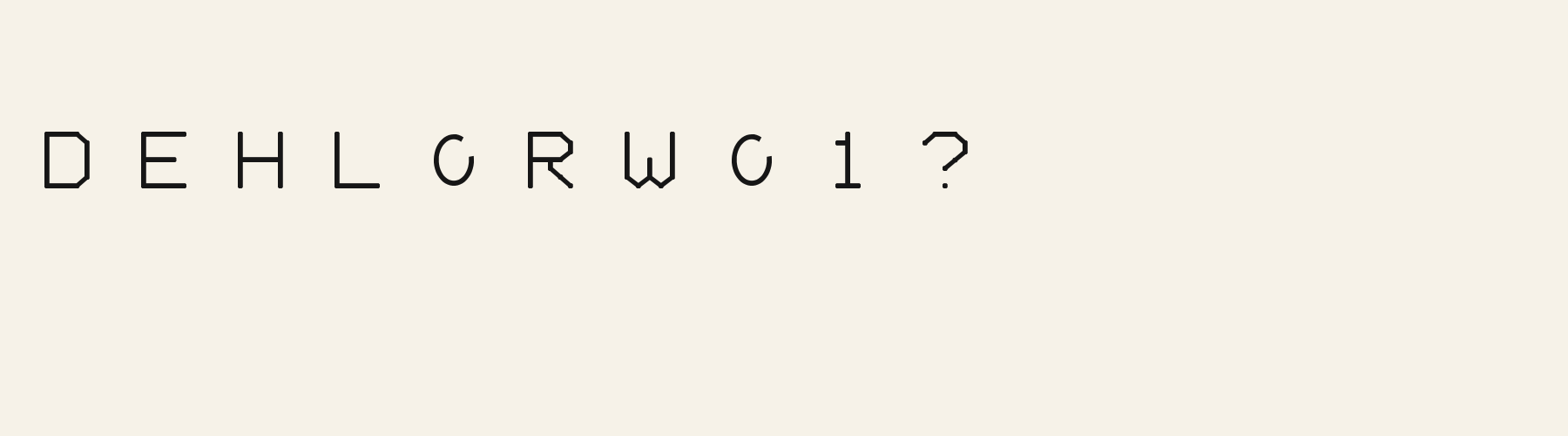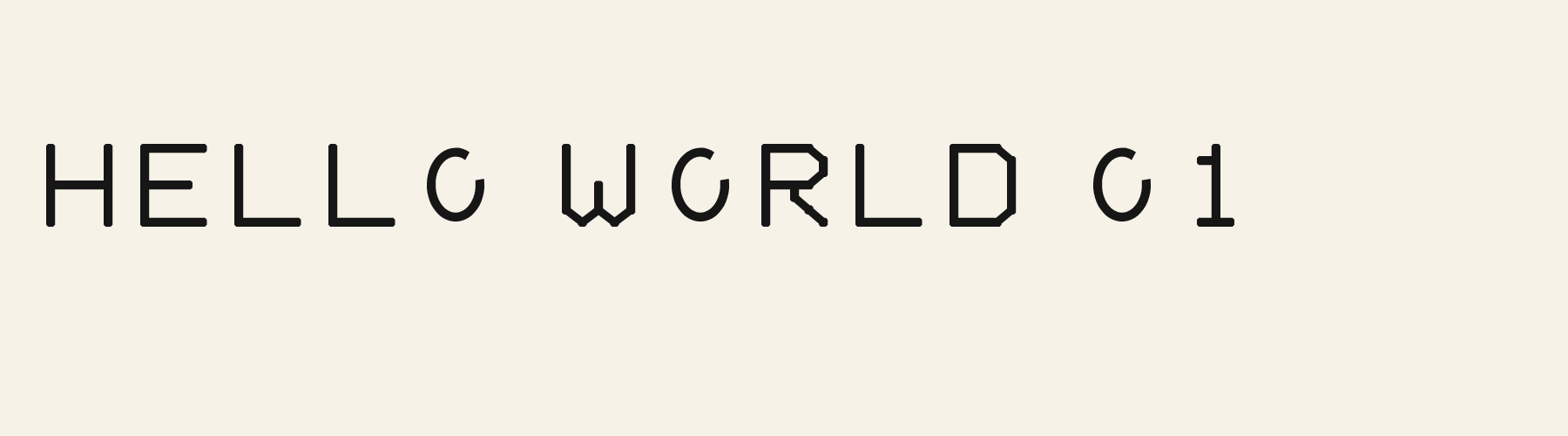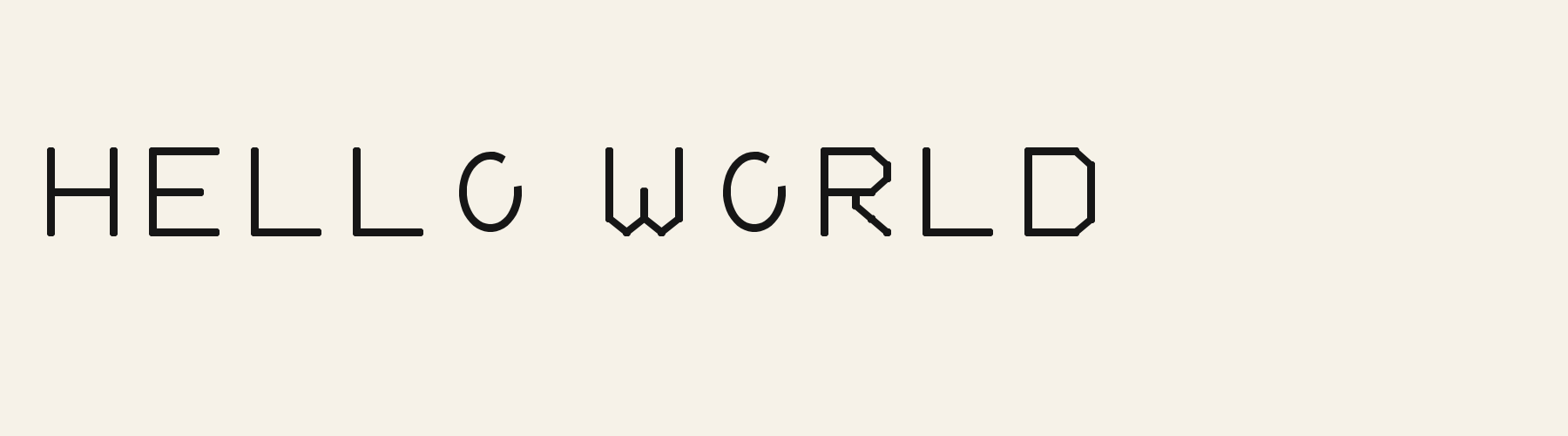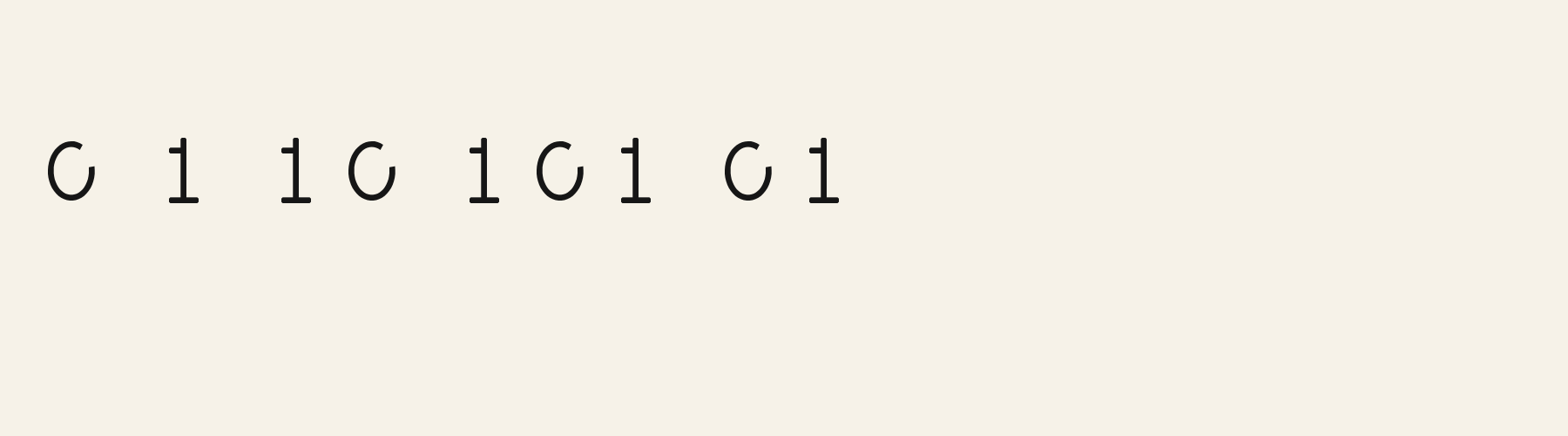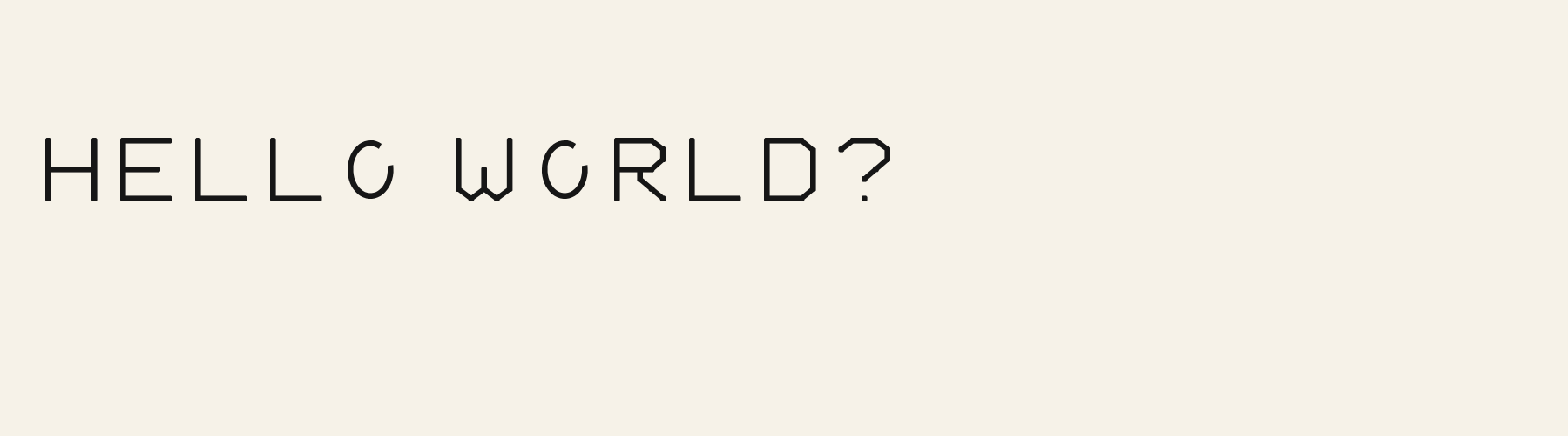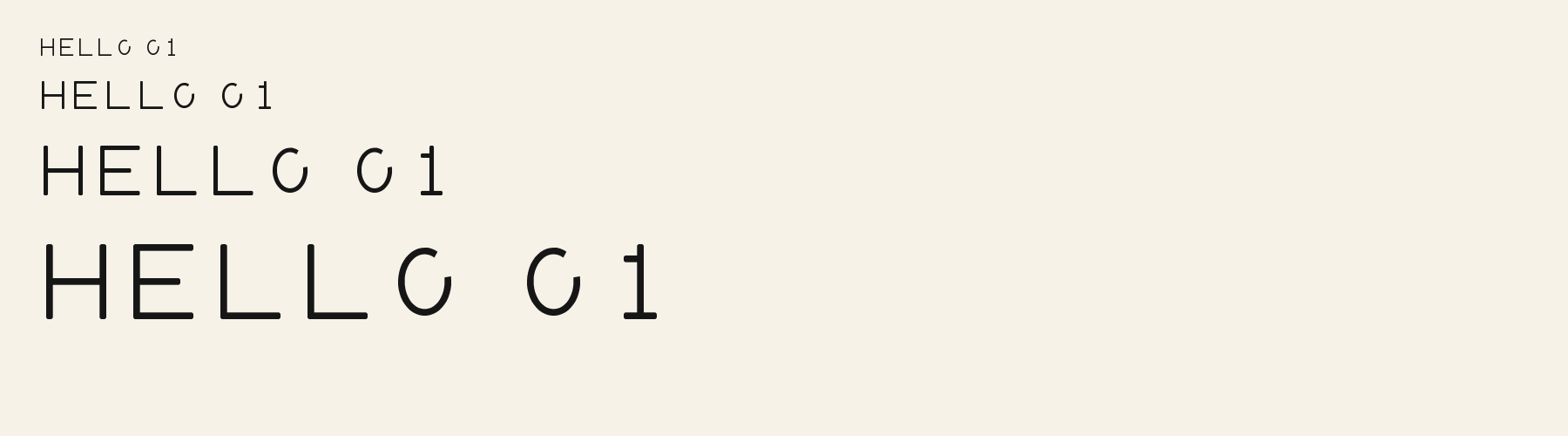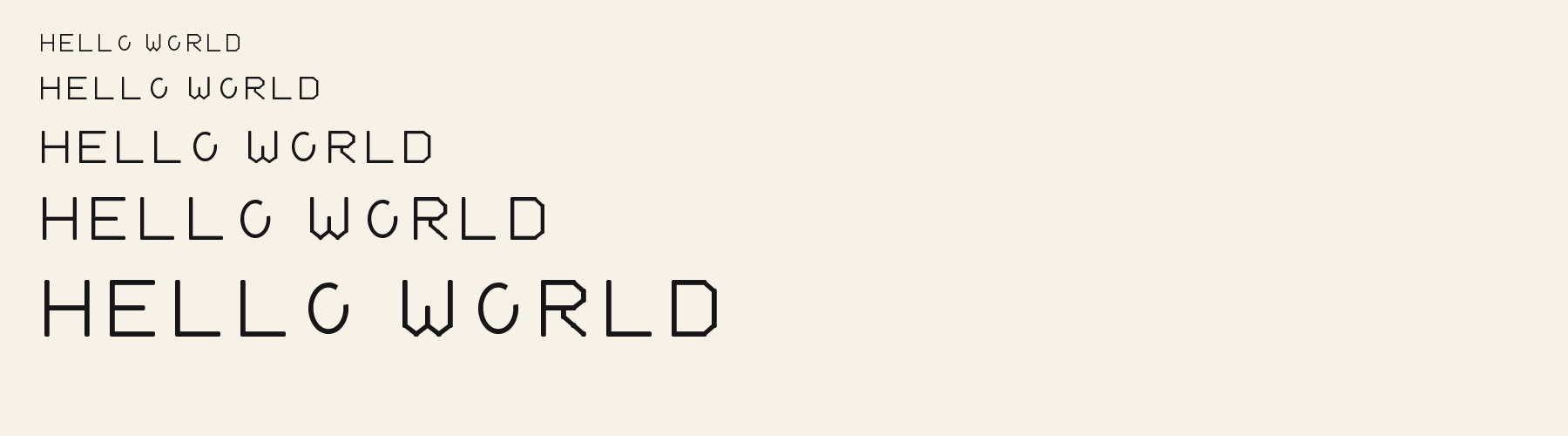
Geo Diagonal Aperture Chamfered Open Bowl Font
Geo Diagonal Aperture combines thin, even strokes with broad spacing and a mix of curved and angular shapes.
Chamfered Open Bowl Letterforms
Geo Diagonal Aperture combines thin, even strokes with broad spacing and a mix of curved and angular shapes. The O opens at the upper right, making its interrupted oval a clear signature in the sample words. The D takes a different route, closing its bowl with a straight side and chamfered corners. The R repeats those clipped corners above a leg that turns outward through an angular junction. Upright stems and level crossbars keep the lettering orderly, while the gaps and generous surrounding space give it a spare, technical mood. It feels especially suited to short wording where the individual shapes can remain prominent.
Check the Latin O opening, R junction and W valleys in your actual wording, then compare tighter and wider spacing. Inspect accented Latin characters separately; other scripts need their own specimens. Preview the thin strokes against the intended background before committing.
Try this face for short headings, with a compact, moderately heavier sans serif supporting descriptions and labels. Its open bowls and spacious capitals establish the visual character, while the companion can keep longer passages contained and give small information more weight.
Geo Diagonal Aperture: letterforms and layout
Compare smaller and larger previews: the larger setting exposes the O opening, the R junction and the W valleys more clearly. Check whether these details remain distinct in the smaller setting.
Geo Diagonal Aperture gives this phrase a light, spacious outline. Its open O, angular W valleys and chamfered D create a technical rhythm with substantial background showing through.
Keystone Shoulder Sans gives the same capitals heavier stems and closed bowls. Its conventional sloping W and denser letter shapes suggest a stronger typographic anchor when the composition needs more visual weight.
OPEN CIRCUIT
Poster. Thin strokes and interrupted bowls give a technology event poster a spare rhythm, especially with generous space around the title. STUDIO WEST
Shop sign. Chamfered corners and angular W valleys lend a studio sign a distinctive outline worth checking against its actual background. EMPTY ORBIT
Book or album cover. The open O and lightly drawn capitals support a restrained album cover with room for the lettering to breathe.
About Geo Diagonal Aperture
Its x-height is 69.6% of the cap height, near the 71.4% typical of sans serif fonts in the library, lower than 26 of the 34 other sans serif fonts. Ascenders on b, d, h, k and l line up with the capitals (100% of their height), and descenders on g, j, p, q and y drop 30.4% of the cap height below the baseline, deeper than 27 of the 34 other sans serif fonts. It sets wide: an average lowercase letter, spacing included, is 114.5% as wide as the capitals are tall (an average capital, 115.2%), 46.2% more than the median for sans serif fonts, so the same words take a longer line. The o is wider than it is tall, 1.17 to 1, and M and W are the widest capitals, at 1.12 times the width of H. The O stops 4.5% of the cap height short of H and stands 4.6% above the baseline.
The letters stand upright, leaning less than 2.5° either way. Vertical stems measure 8.9% of the cap height, lighter than 19 of the 28 other sans serif fonts. Ink covers 16.2% of each lowercase letter's box (its advance width by the cap height), lighter than 32 of the 34 other sans serif fonts. Strokes keep one thickness in every direction: the sides of o and O measure the same as their tops and bottoms. Geo Diagonal Aperture comes in Regular and Bold; Bold puts down 22% more ink than Regular.
Its 159 characters include 116 Latin letters, plus 43 figures, punctuation marks and symbols; 64 of the Latin letters are accented or special forms beyond A to Z. The word space measures 55.7% of the cap height, and the blank space either side of a lowercase letter takes up 35.6% of its width. The font carries no kerning, so spacing comes from each letter’s own side bearings. All ten figures share one width, so columns of numbers line up.
- What fonts pair well with Geo Diagonal Aperture?
- Monolith Slab (serif), Lore Serif (serif) and Needle Formal (script) are drawn on a different letter structure, so Geo Diagonal Aperture can carry the headings while one of them sets the text. Each has its own page with a type tester for trying the pair.